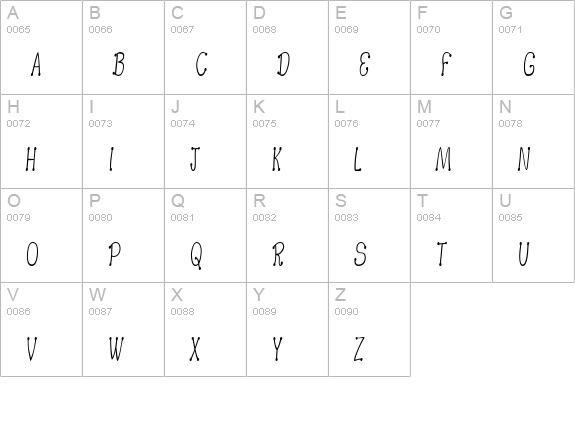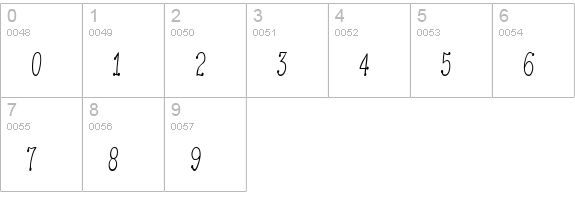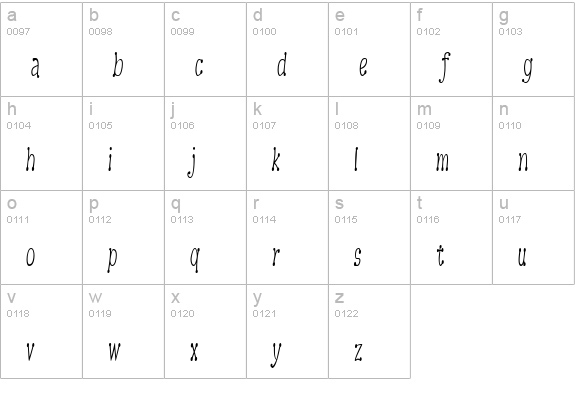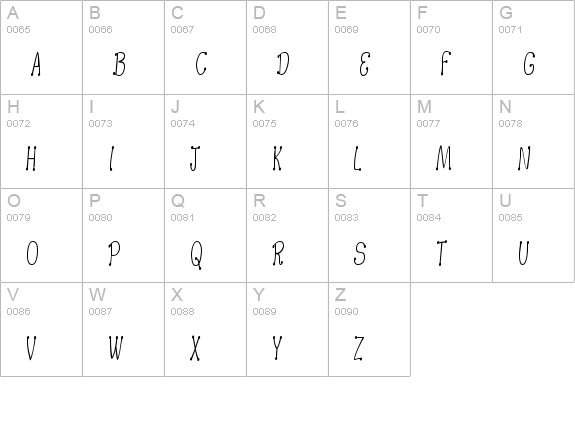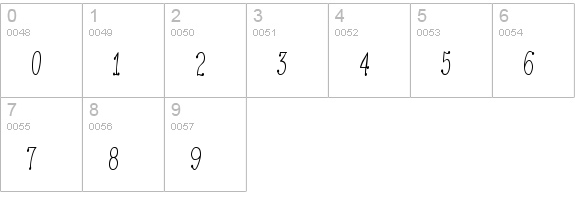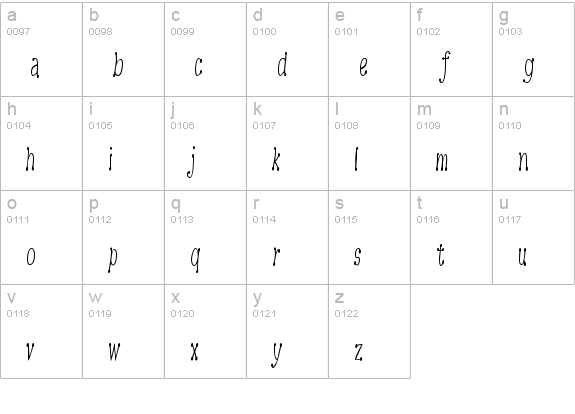
ArgentBobSquish Font Details
ArgentBobSquish font is a versatile and modern typeface that combines sleek lines with a touch of playfulness. Its unique design makes it perfect for a wide range of projects, from branding to editorial design. This font features a harmonious balance between elegance and creativity, making it a standout choice for any creative endeavor. What sets ArgentBobSquish font apart is not only its striking appearance but also its accessibility. This font is available for free download at FontsMarket.com, allowing designers and creatives to easily incorporate it into their work without any cost. With its clean and contemporary aesthetic, ArgentBobSquish font is sure to elevate any design project and leave a lasting impression on viewers.